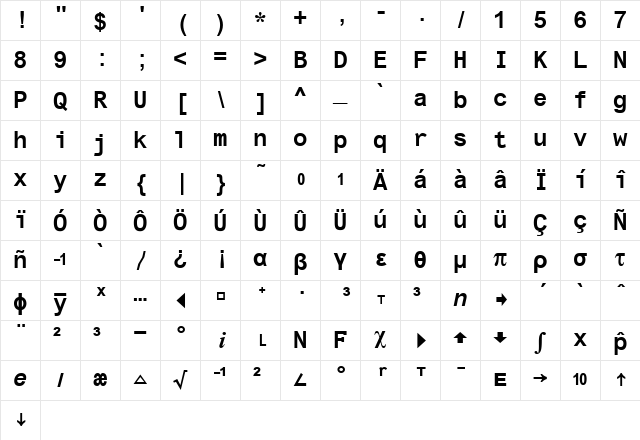
Complete Ti83Pluspc Bold glyph index. Displaying only characters natively supported by Ti83Pluspc Bold font.
Ti83Pluspc is a composed and adaptable typeface that performs quietly and consistently across a wide range of design contexts. Its bold stroke weight gives it real presence on the page.